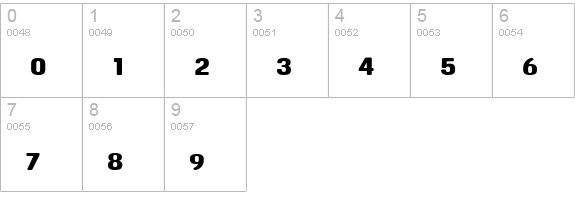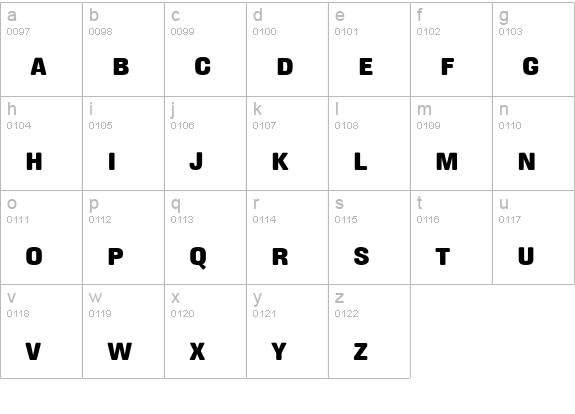
Ketchupa-SmallCaps Font Details
Introducing Ketchupa-SmallCaps, a stunning and versatile font that will add a touch of elegance and sophistication to any design project. With its unique blend of boldness and finesse, this font is perfect for capturing attention and making a lasting impression. The Ketchupa-SmallCaps font features a delightful combination of small capital letters, offering a fresh take on traditional typography. Each character is meticulously crafted, showcasing intricate details that effortlessly balance legibility and style. The result is a stunning display of letters that are both visually appealing and highly readable. Whether you're designing a logo, creating eye-catching headlines, or crafting beautiful invitations, Ketchupa-SmallCaps is a font that will elevate your work to new heights. Its versatility allows it to seamlessly adapt to various design styles, making it suitable for both contemporary and classic projects. One of the greatest advantages of Ketchupa-SmallCaps is that it is freely available to download at FontsMarket.com. This means that you can instantly access this exceptional font without any cost, allowing you to save both time and money on your creative endeavors. So, why wait? Experience the beauty and versatility of Ketchupa-SmallCaps today. Download it for free at FontsMarket.com and unlock a world of endless design possibilities.